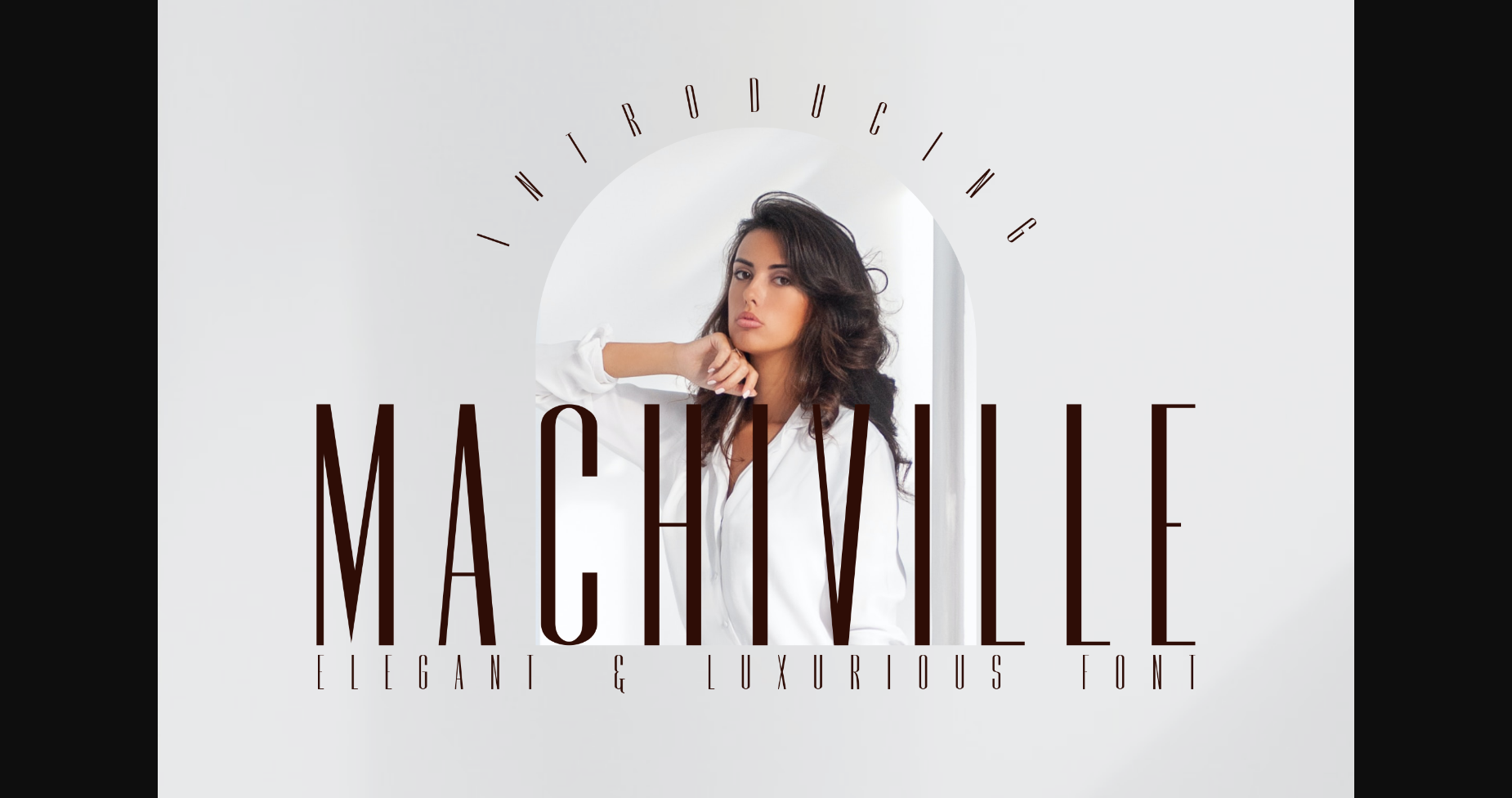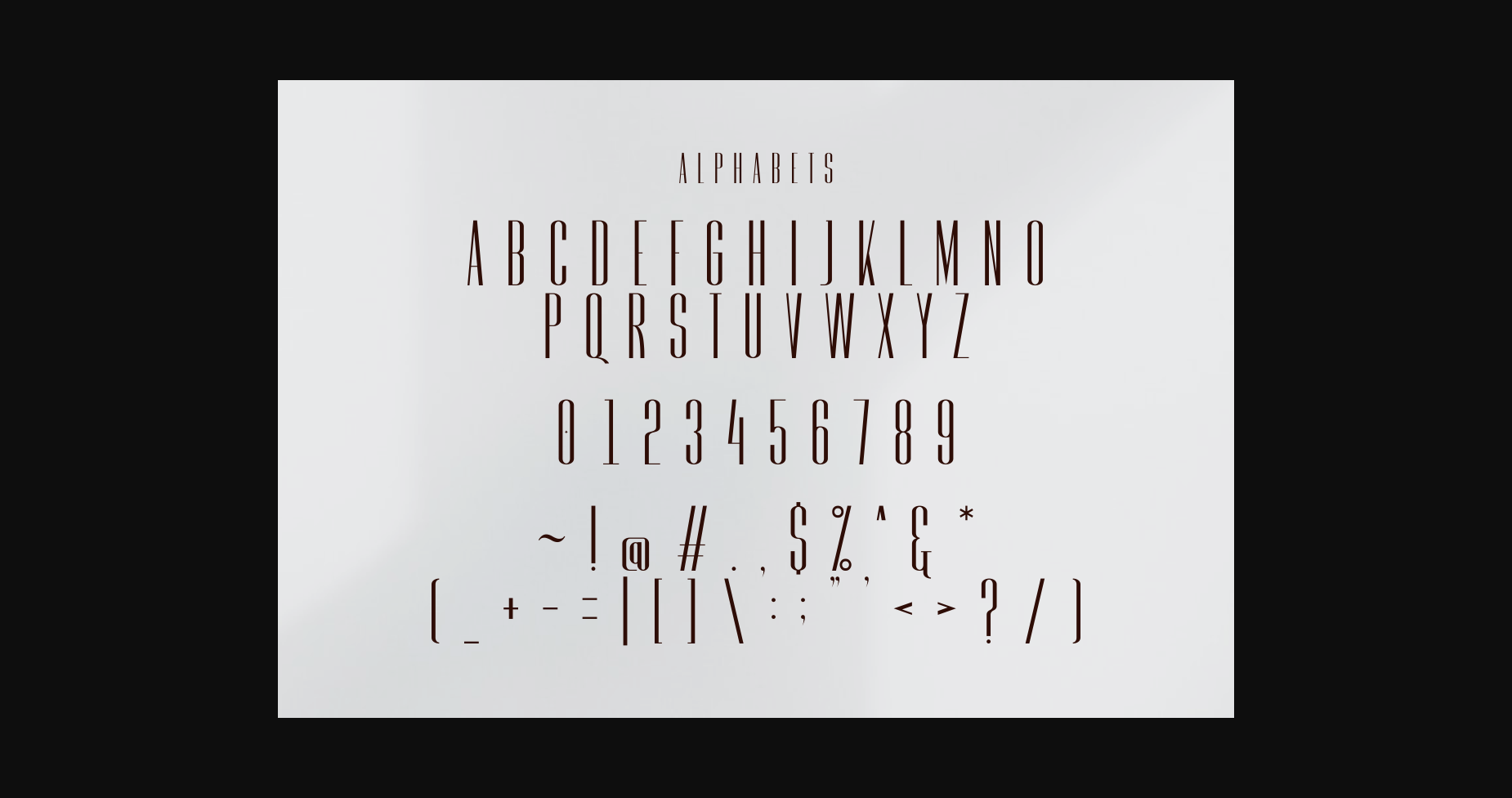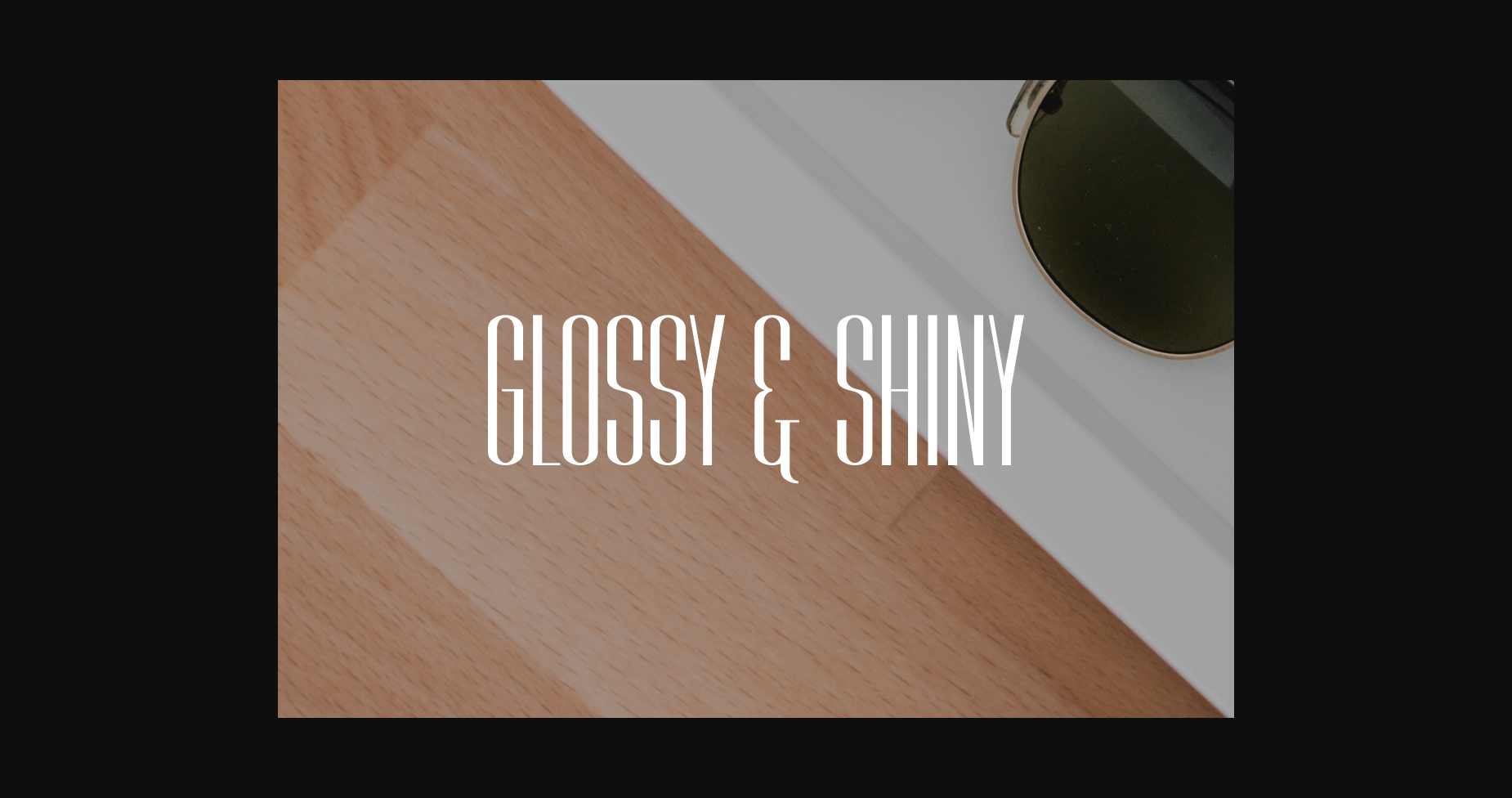
About Machiville Font
Machiville Font: A sophisticated and versatile sans serif typeface that exudes elegance and modernity. With its clean and balanced letterforms, Machiville Font adds a touch of refined professionalism to any design project. Ideal for branding, editorial layouts, and web design, this font delivers a timeless aesthetic with a contemporary twist.